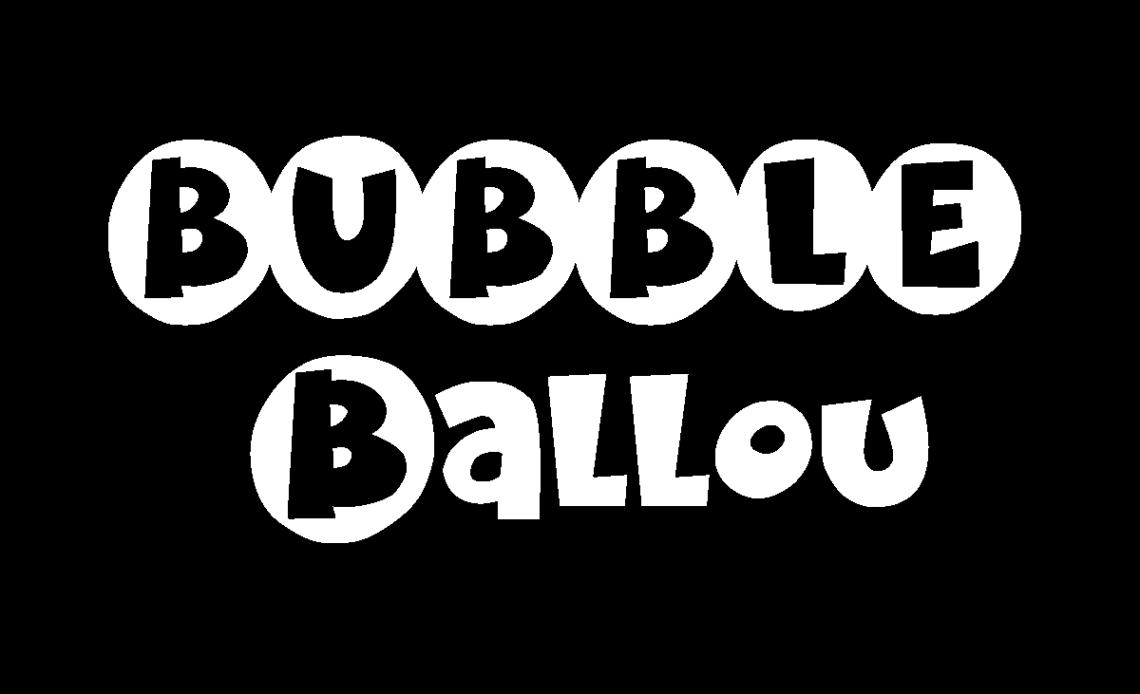
K26 Bubble Ballou Font
Introducing K26 Bubble Ballou, the vivacious and captivating font that exudes playfulness and nostalgia. This decorative font, a brainchild of K26Fonts, transports you back to the golden era of retro aesthetics with its charming bubble ornamentation. Bubble Ballou is the perfect font to ignite your creativity and add a dash of whimsy to your designs.
Immerse yourself in the world of Bubble Ballou, where every letter dances with a unique personality. The bold lettering, enveloped in delicate bubble-like outlines, creates a sense of visual delight. This font is an artist's playground, inviting you to explore endless possibilities and let your imagination run wild.
Picture this: a vibrant poster adorned with Bubble Ballou, capturing the attention of passersby with its playful energy. Or, imagine a whimsical logo that dances off the screen, leaving a lasting impression on your audience. Bubble Ballou is your secret weapon to create designs that resonate, designs that spark joy and leave an indelible mark.
Whether you're a seasoned graphic designer or a creative enthusiast, Bubble Ballou is the font that will transform your projects into captivating works of art. Its versatility knows no bounds, lending itself seamlessly to a myriad of design endeavors. From eye-catching social media posts that demand attention to delightful invitations that promise an unforgettable experience, Bubble Ballou is your go-to font for creating designs that leave a lasting impression.